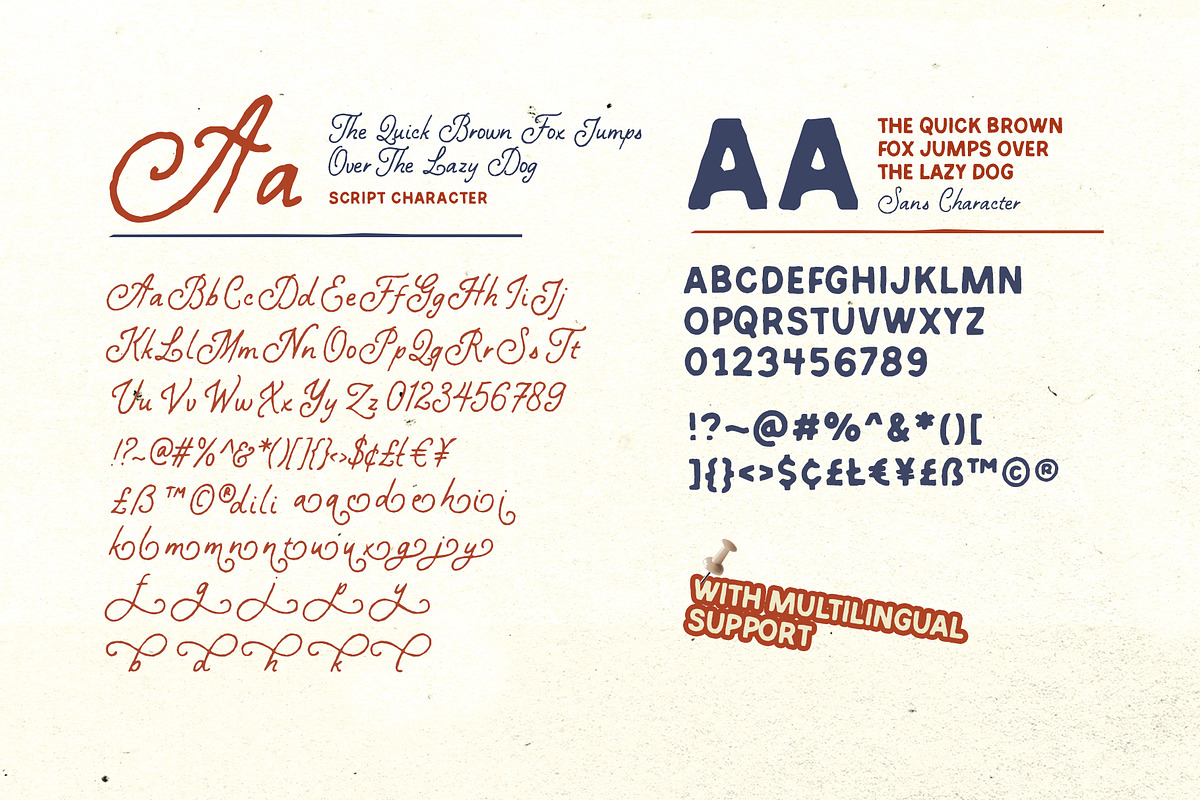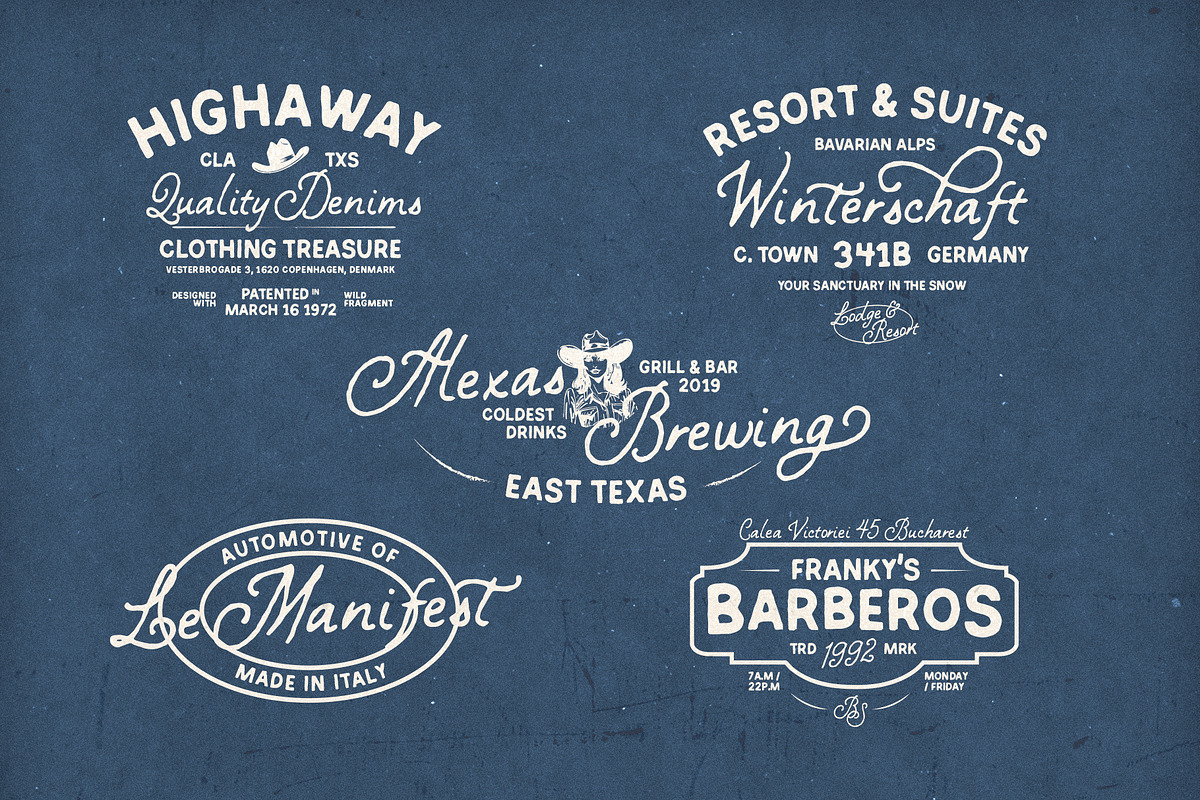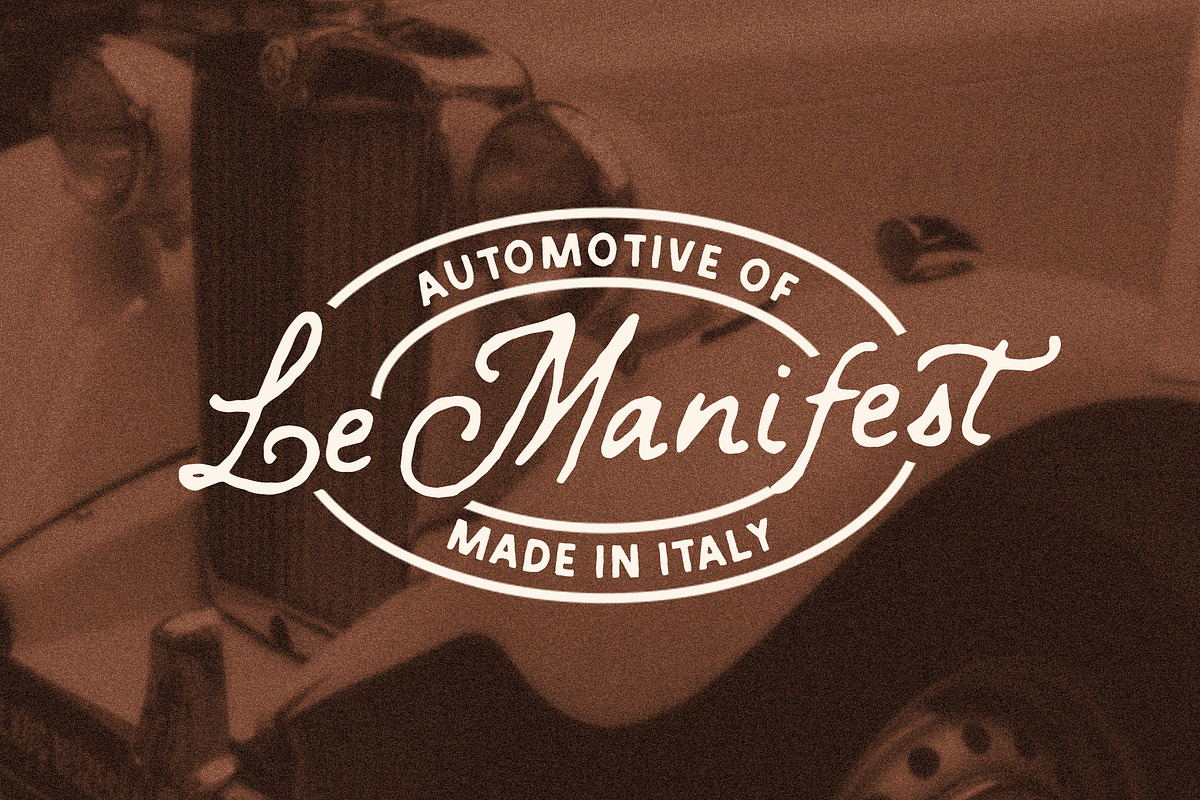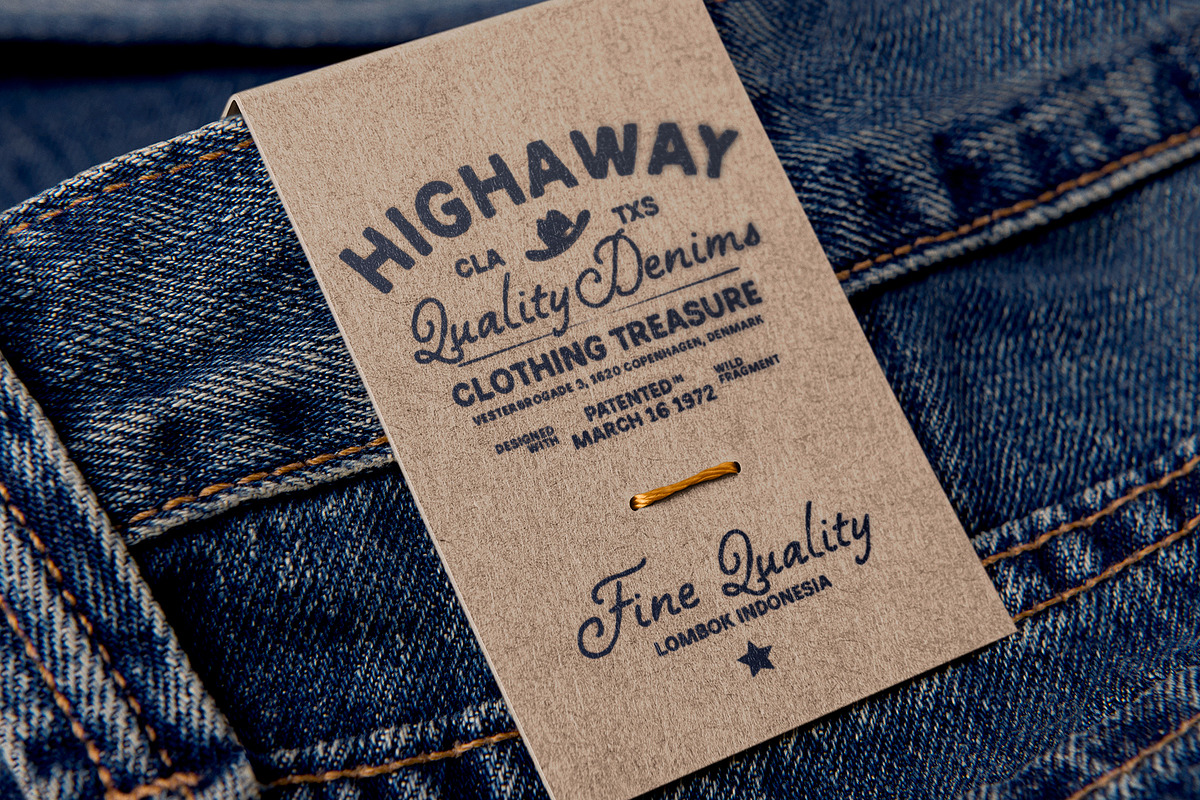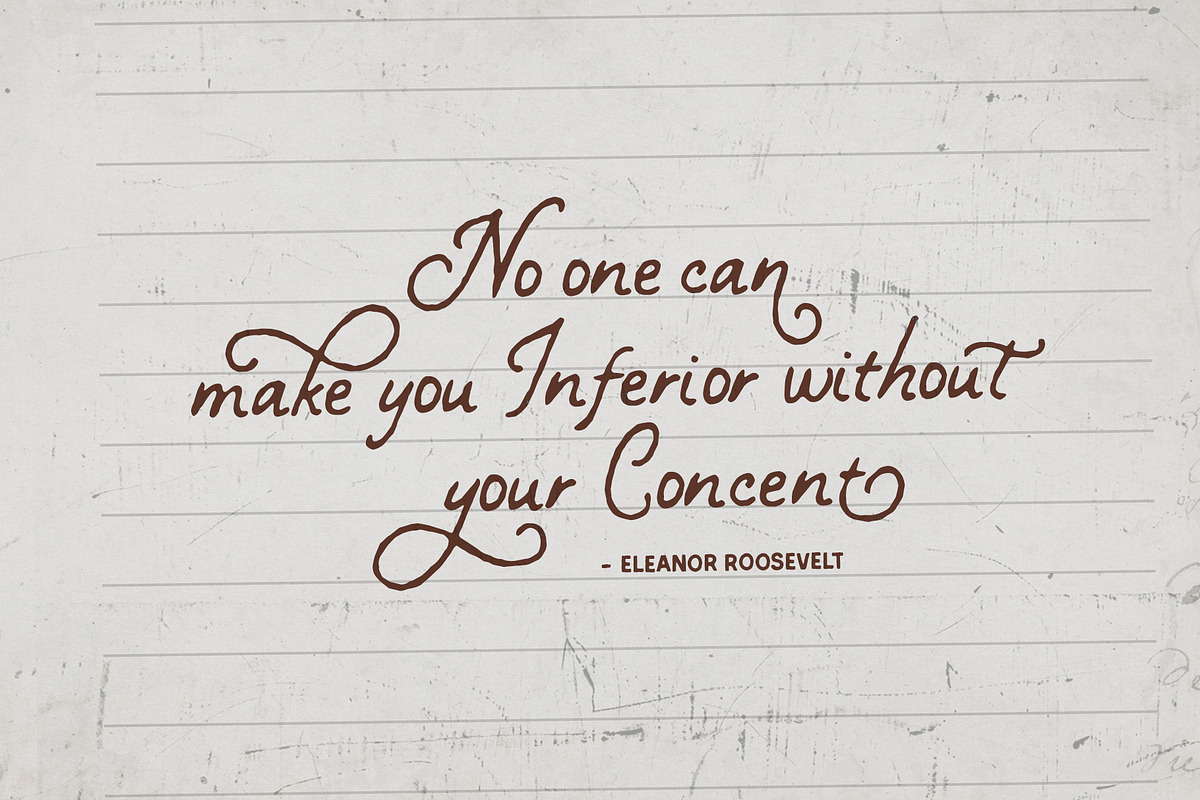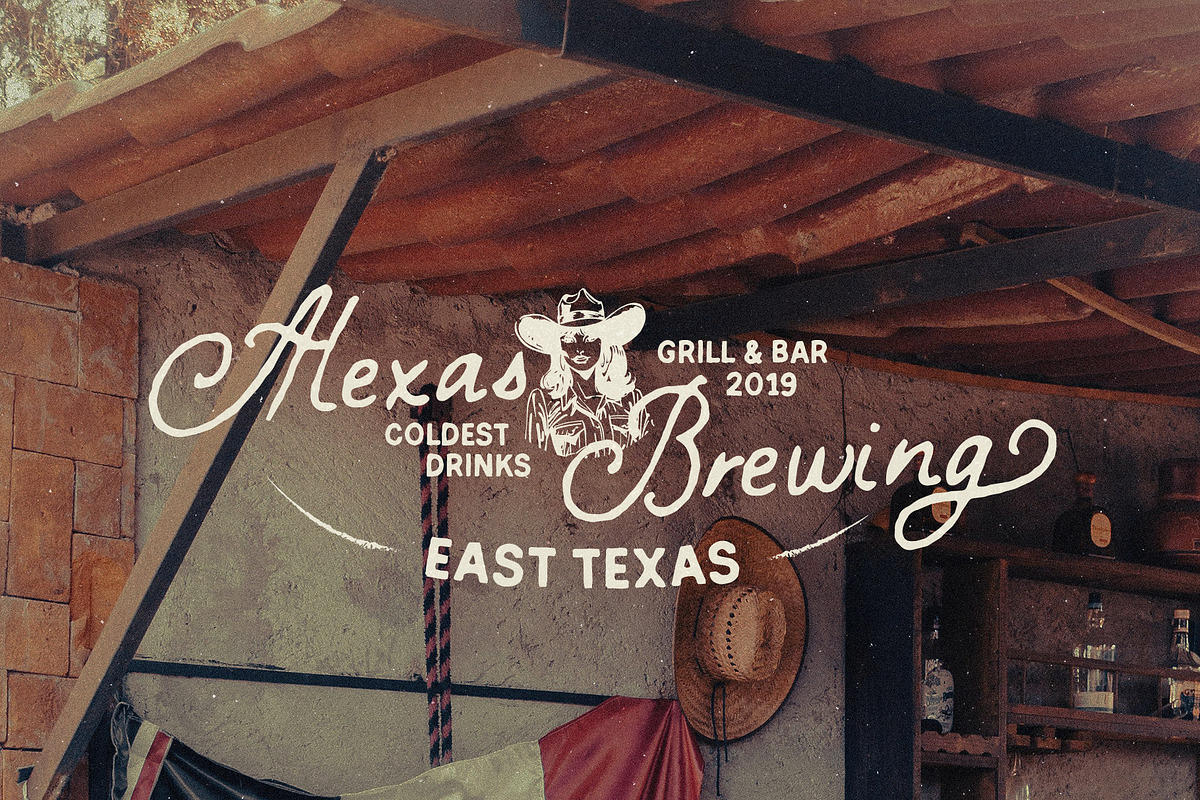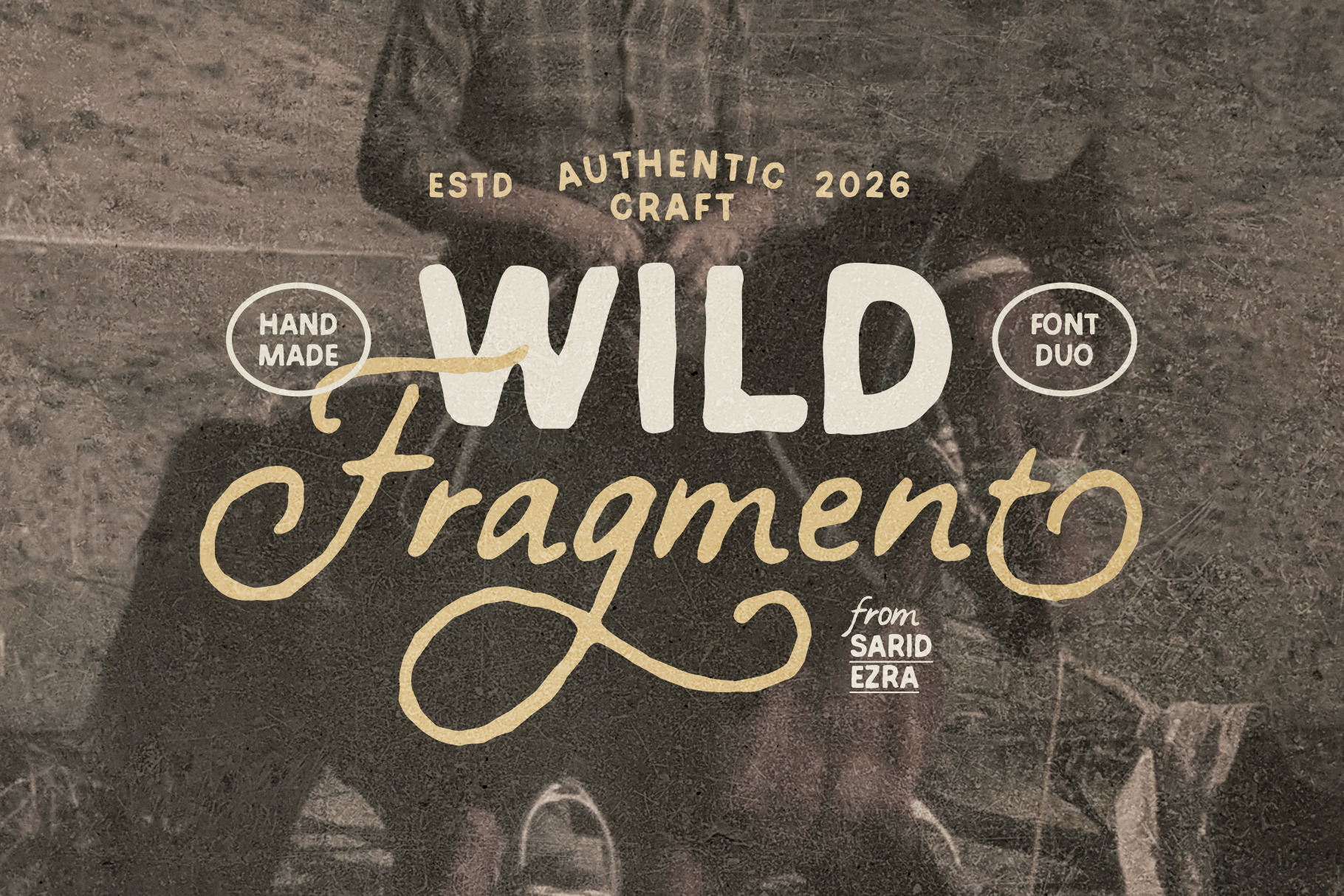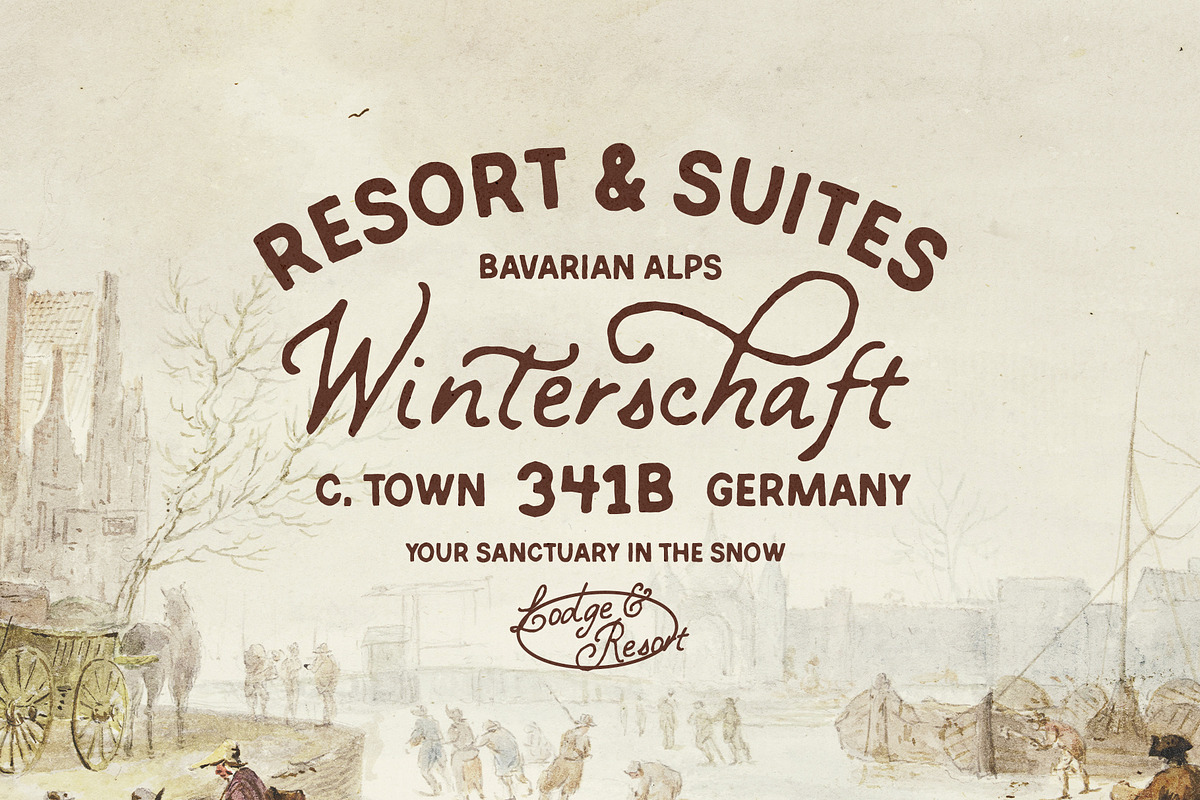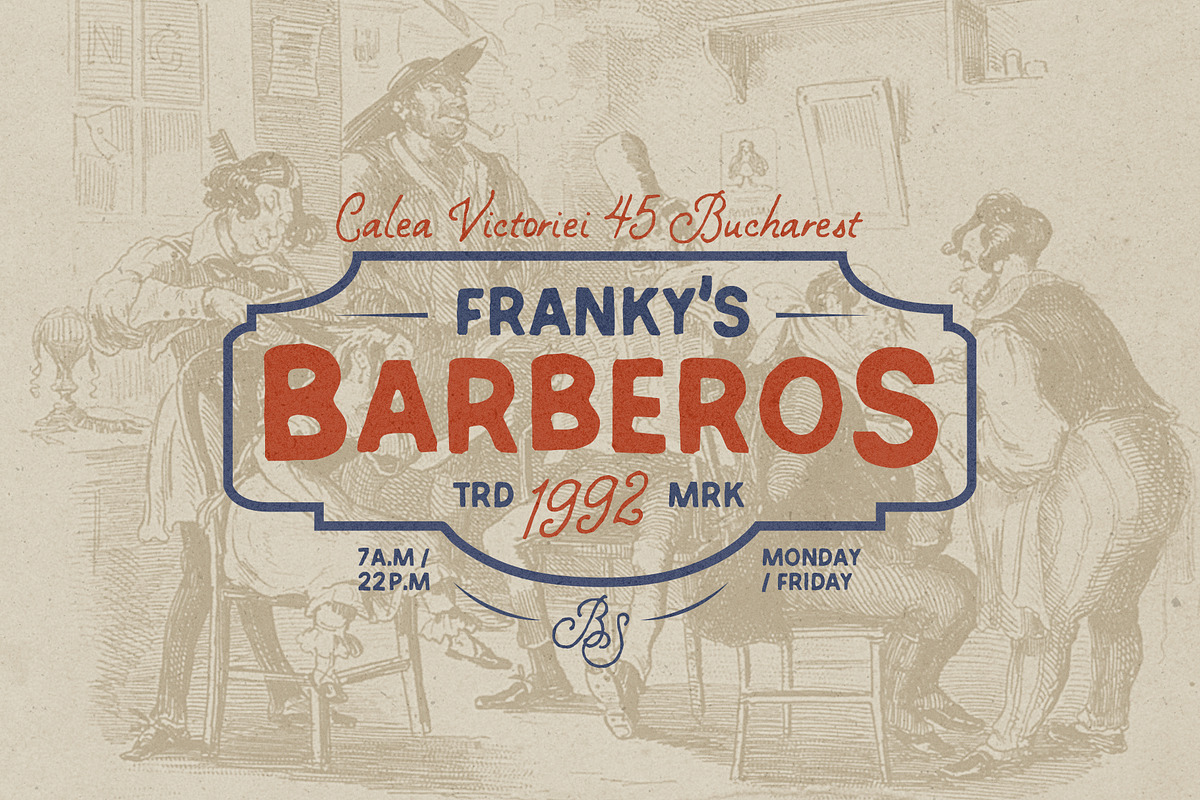
Wild Fragment - Handmade Font Duo
Wild Fragment is a handmade font duo featuring rough script and sans Serif. Designed to work beautifully together, this versatile combination makes it easy to create eye-catching logotypes, badges, and branding for outdoor and adventure-themed projects. Its natural handcrafted character is also perfect for quotes, apparel, packaging, posters, and any design that needs a relaxed and adventurous touch. Whether you're creating for camping, hiking, travel, or an outdoor brand, Wild Fragment brings a warm and authentic handmade feel to every project. This font also includes multilingual support, making it suitable for creative projects around the world.